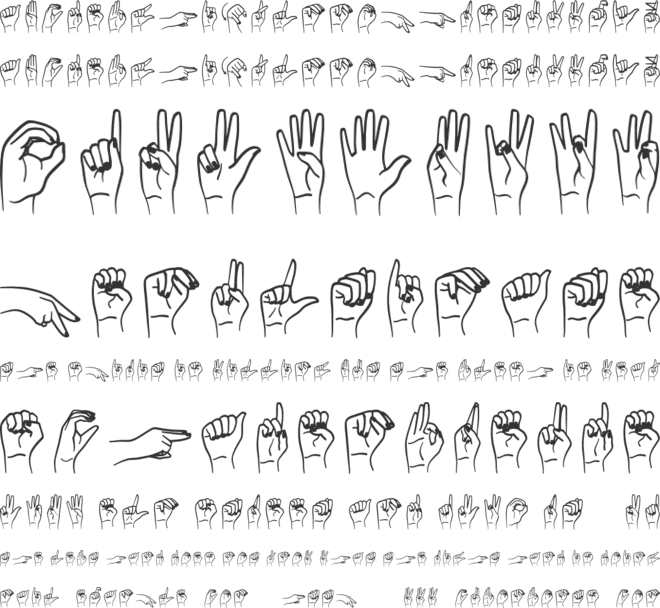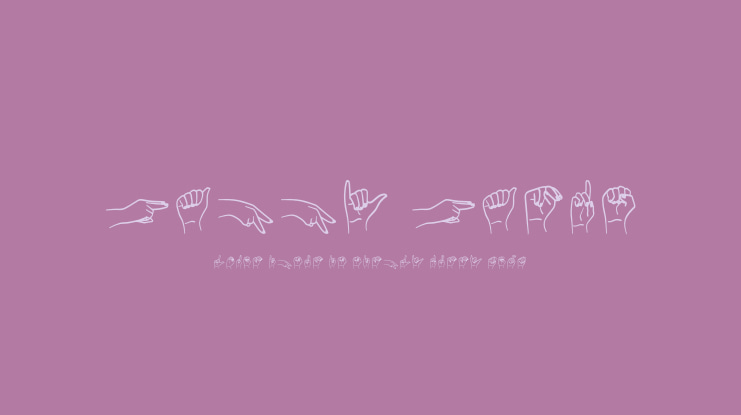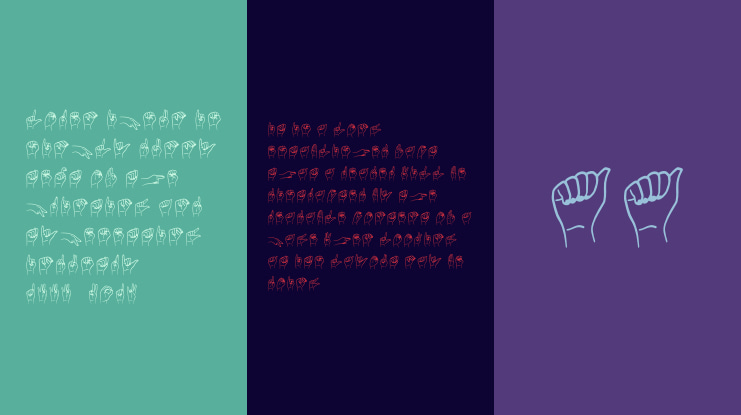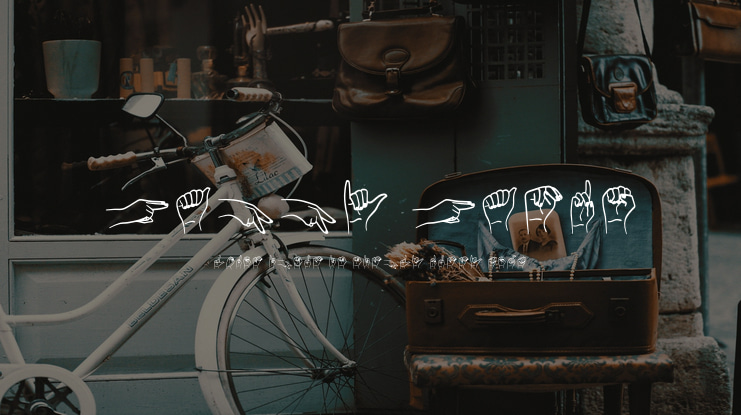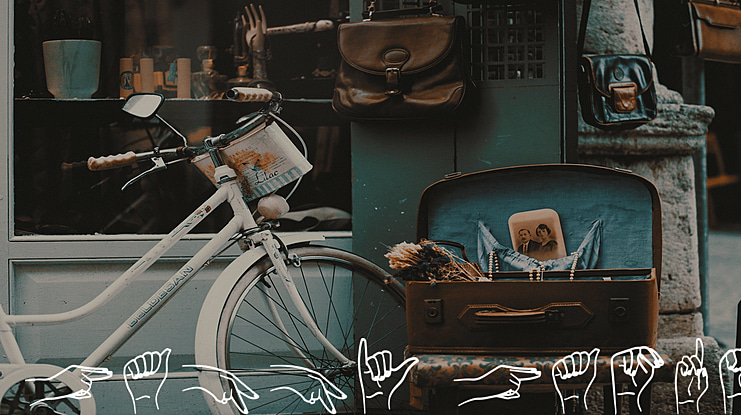
Happy Hands Font
I am very happy to introduce "Happy Hands", a fun way to learn and use the American Sign Language ! "Happy Hands" comes in uppercase & numbers. Letters range from A to Z and numbers from 0 to 10. ???? BUY HERE : Creative Market : https://creativemarket.com/InkCloudDesign/5354294-ASL-Font-American-Sign-Language-Type DesignBundles : https://fontbundles.net/inkclouddesign/878616-asl-font-american-sign-language-symbols-alphabet-n/rel=ROwFkN